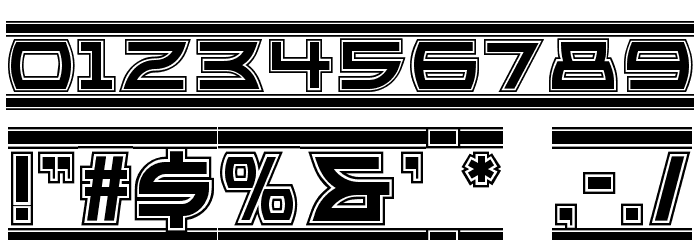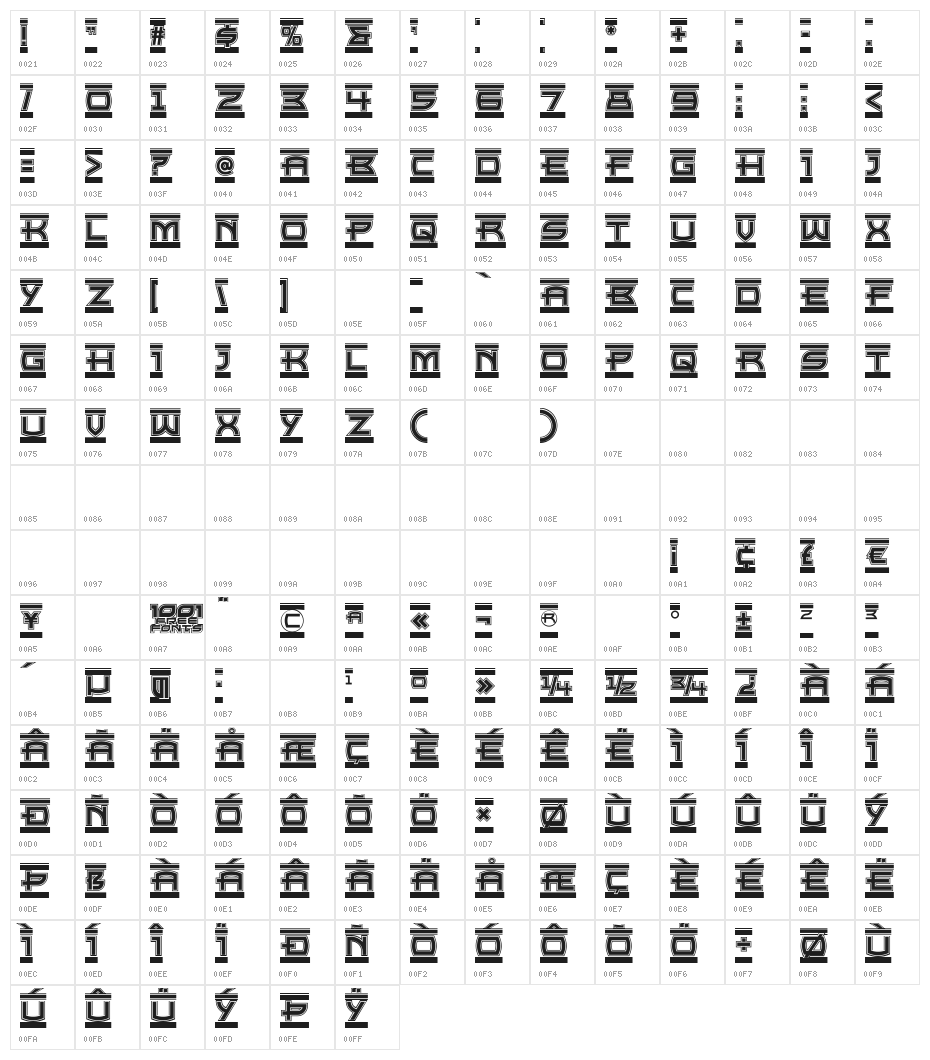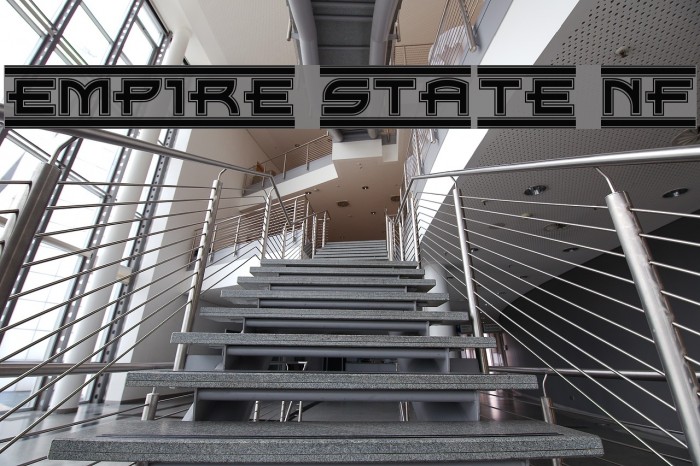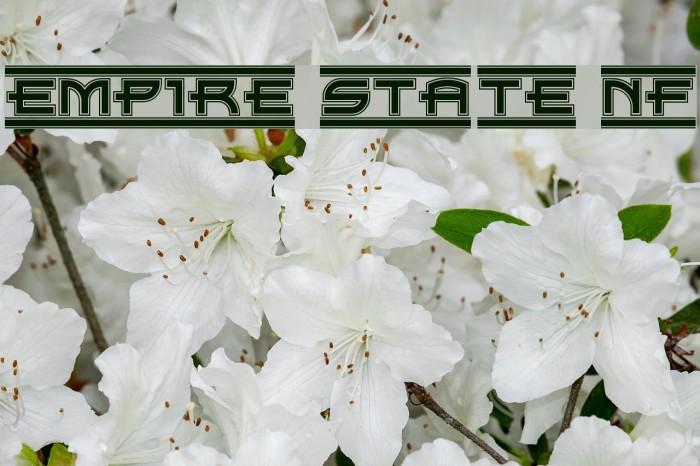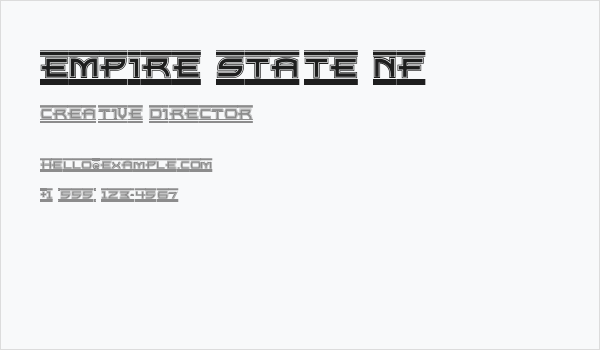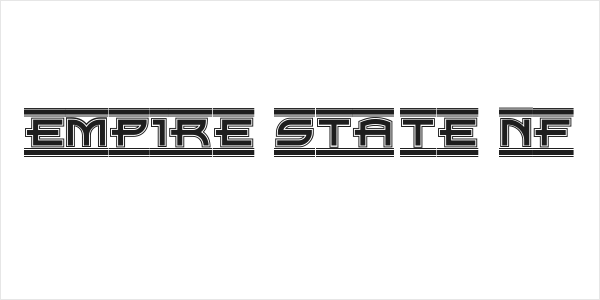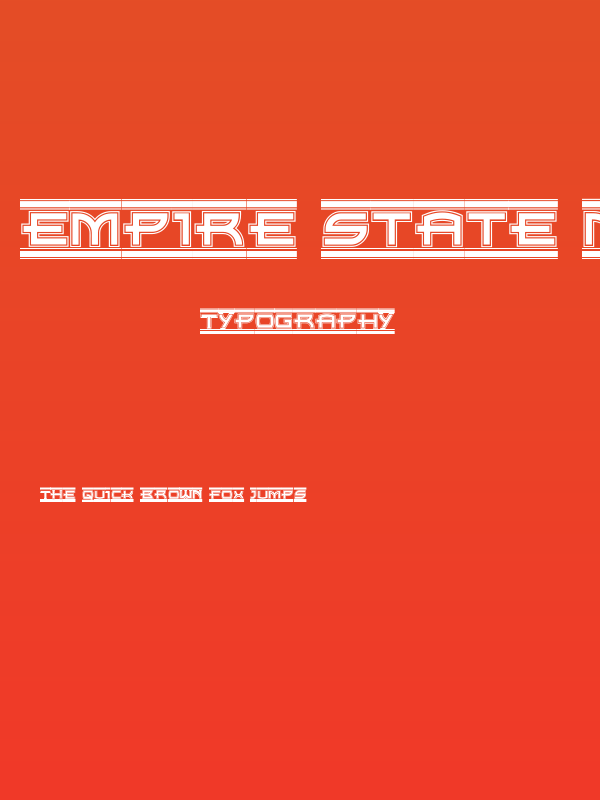
Empire State NF Font
Empire State NF Description
This font features a bold, geometric design with a distinct Art Deco influence. The characters are outlined with a double line, creating a sense of depth and dimension. The uppercase letters are uniform in height, with sharp angles and straight lines that give a futuristic and architectural feel. The numbers and special characters maintain the same stylistic elements, ensuring consistency across all glyphs. The overall appearance is striking and modern, making it suitable for attention-grabbing designs.
| Overall Style | Modern, Art Deco |
| Proposed Projects | Ideal for poster designs, branding projects, and any creative work that requires a bold, architectural aesthetic. |